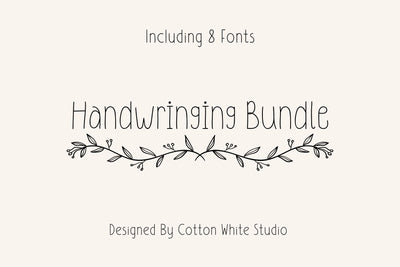
Handwritten Font Bundle Perfect for Digital Notes
Introducing our latest font bundle: a collection of 8 beautifully handwritten fonts perfect for digital notes! These fonts are designed to capture the natural, organic feel of handwritten text, making them a great choice for digital notes or personal projects or for adding a touch of uniqueness to your designs.
These fonts are designed with legibility and versatility in mind. Our font bundle includes a range of handwritten styles. So whether you're taking notes in class, creating a presentation for work, or designing a logo for your business, our font bundle has you covered.